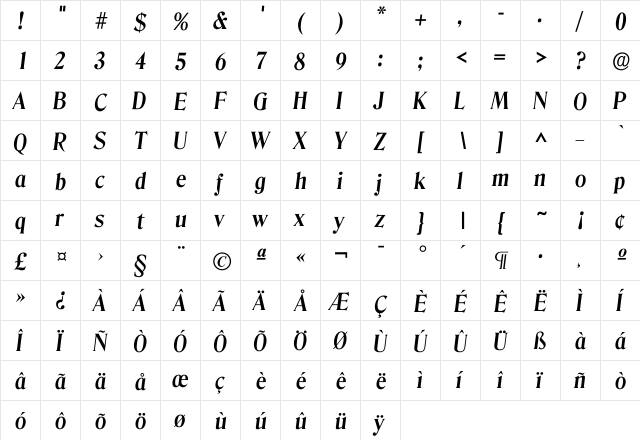
Idenver DemiBold
Design Context for Idenver Typeface
Idenver takes a measured approach to typography — its balanced proportions and neutral character make it a reliable workhorse for both digital and print work. The heavy weight commands attention and anchors typographic hierarchies.
Pro Tip: Pair Idenver with a font of contrasting weight or personality to build a more expressive typographic hierarchy.